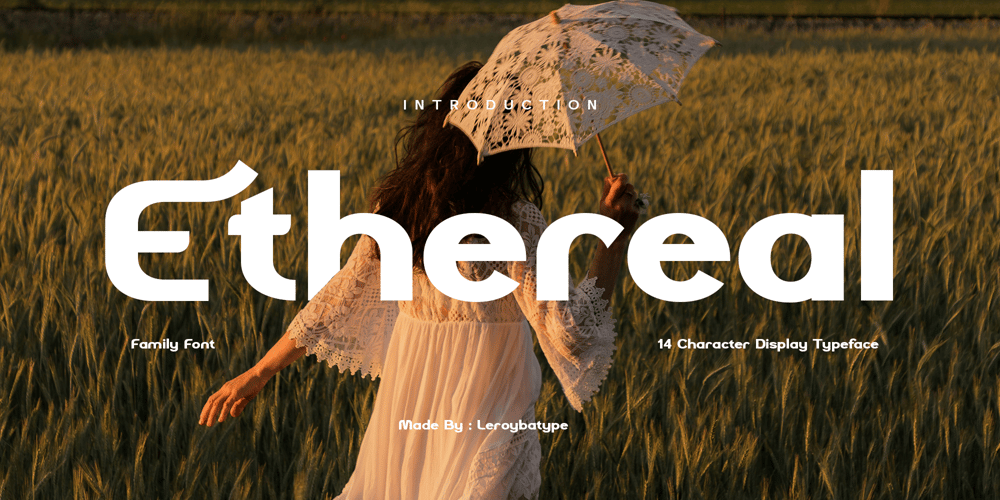
Ethereal Sans
Ethereal Sans font
Ethereal Sans Font Family was designed by Habib Abdur Rofi and published by Laroyba Type. Ethereal Sans contains 14 styles and family package options. Ethereal Sans is a sophisticated and versatile sans serif font family that combines elegance with modernity. Designed with an eye for detail, Ethereal Sans offers a wide array of stylistic alternates and ligatures, making it perfect for both formal occasions and creative design projects.With its clean lines and balanced proportions, Ethereal Sans can effortlessly elevate any branding, editorial, or web design. The variety of weights and extensive glyph set allow for flexibility, whether you need a refined look for corporate presentations or a bold statement for eye-catching headlines. Its adaptability ensures that Ethereal Sans is suitable for a broad range of design needs, from professional to artistic.Choose Ethereal Sans to bring a touch of elegance and uniqueness to your next project.